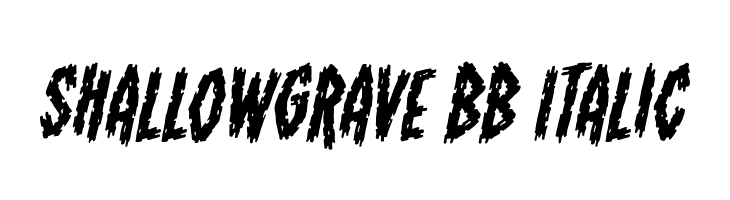
A bold, jagged, and distressed italic font with a rugged, edgy style.
A bold, jagged, and italic font with a distressed, horror-themed style.
A bold, jagged font with a distressed, hand-drawn appearance.
A bold, angular graffiti-style font with sharp, jagged edges.
A decorative font with jagged, artistic strokes and a wild, untamed appearance.
A bold, jagged font with a dynamic, slanted style resembling chainsaw cuts.
A bold, jagged font with a chainsaw-like edge, perfect for dramatic designs.
A playful, bold font with irregular, jagged edges and a hand-drawn appearance.
A bold, jagged, and italicized font with a fierce, energetic style.